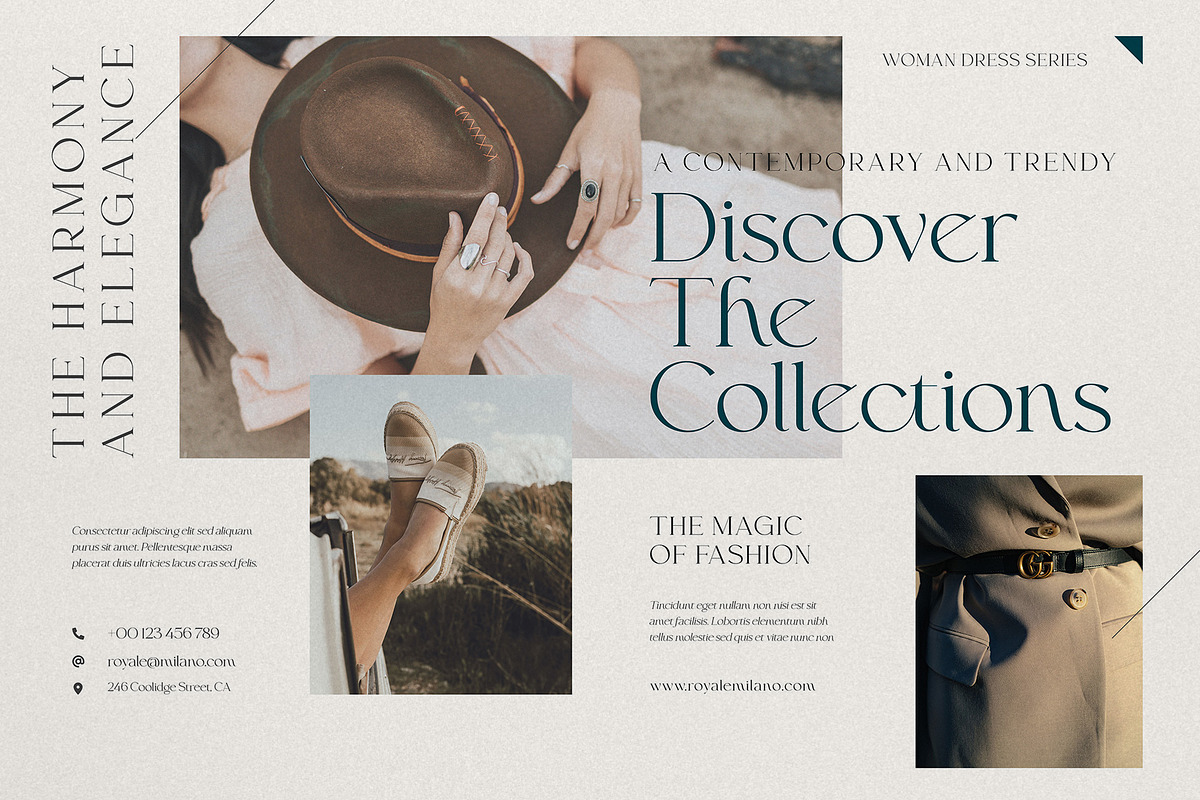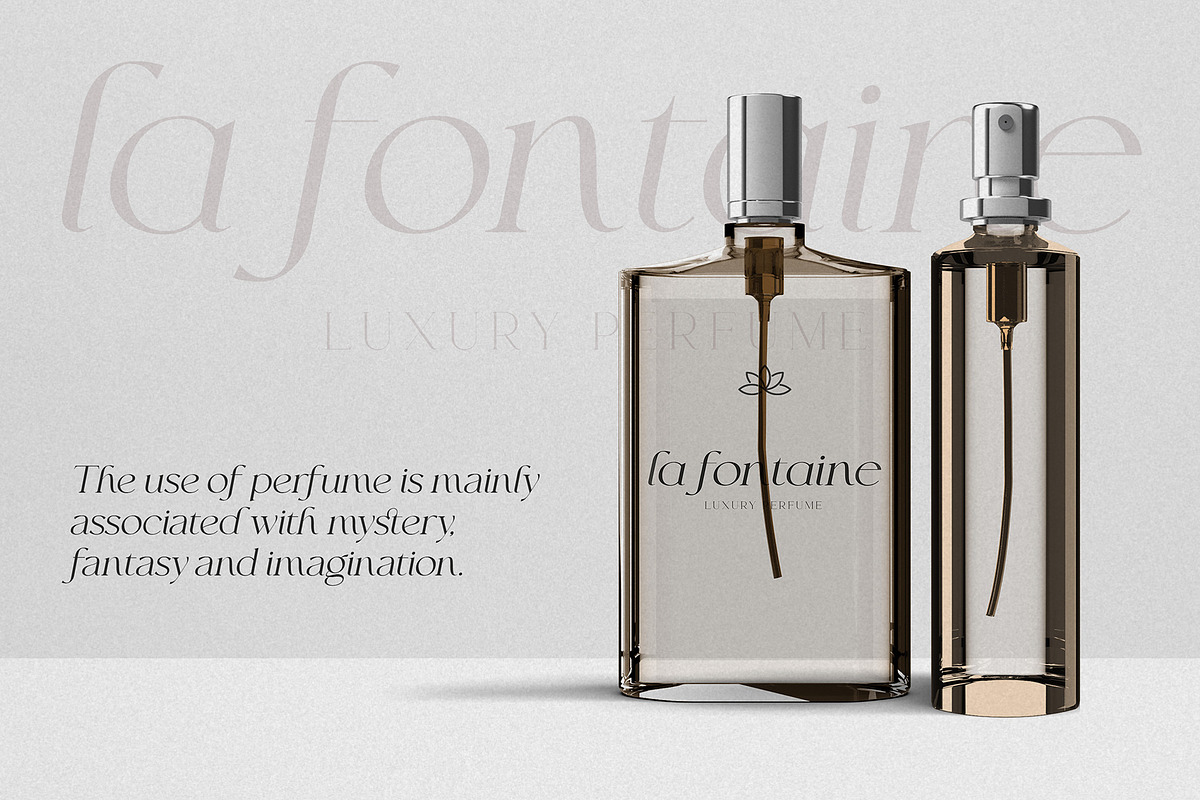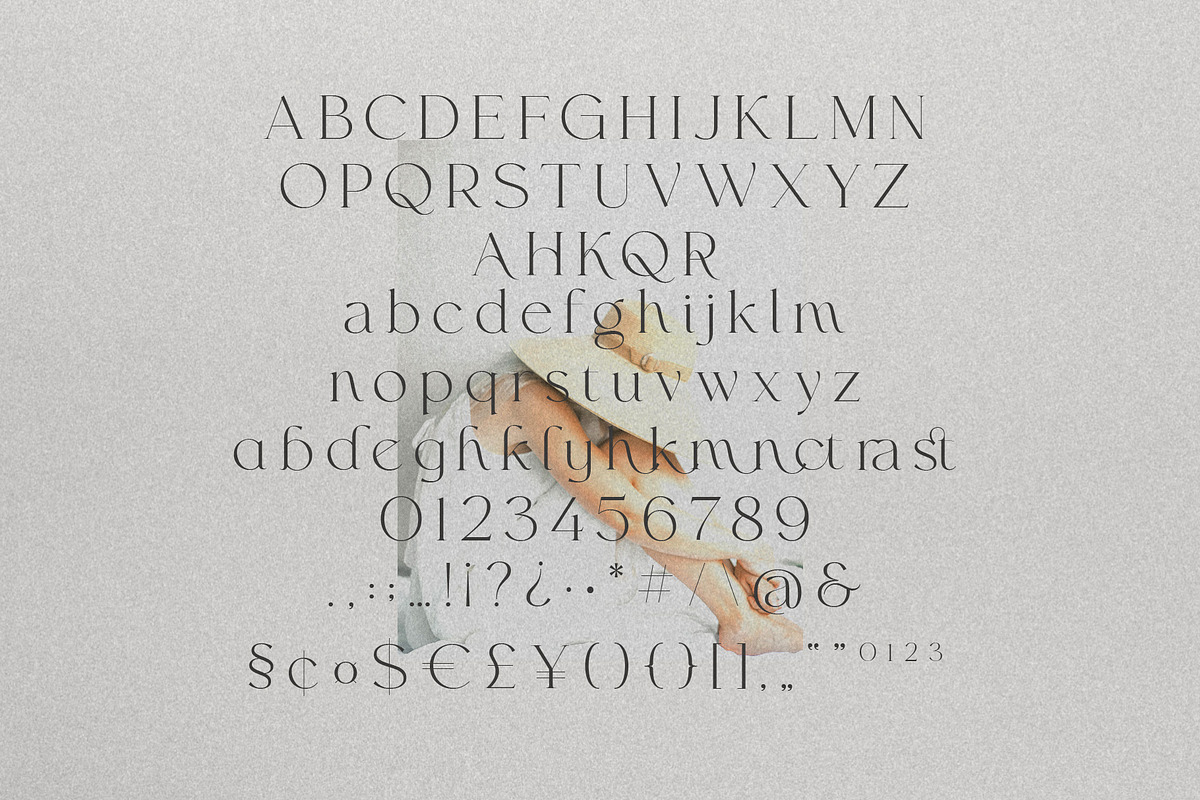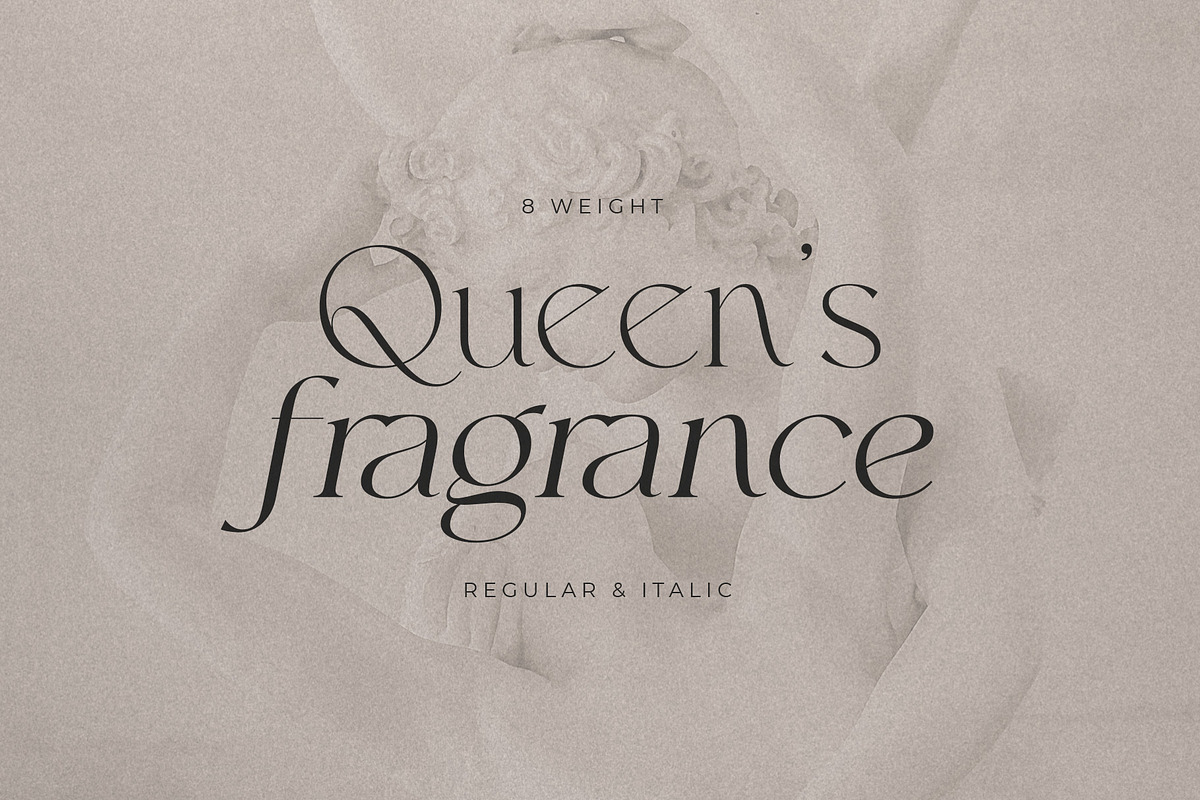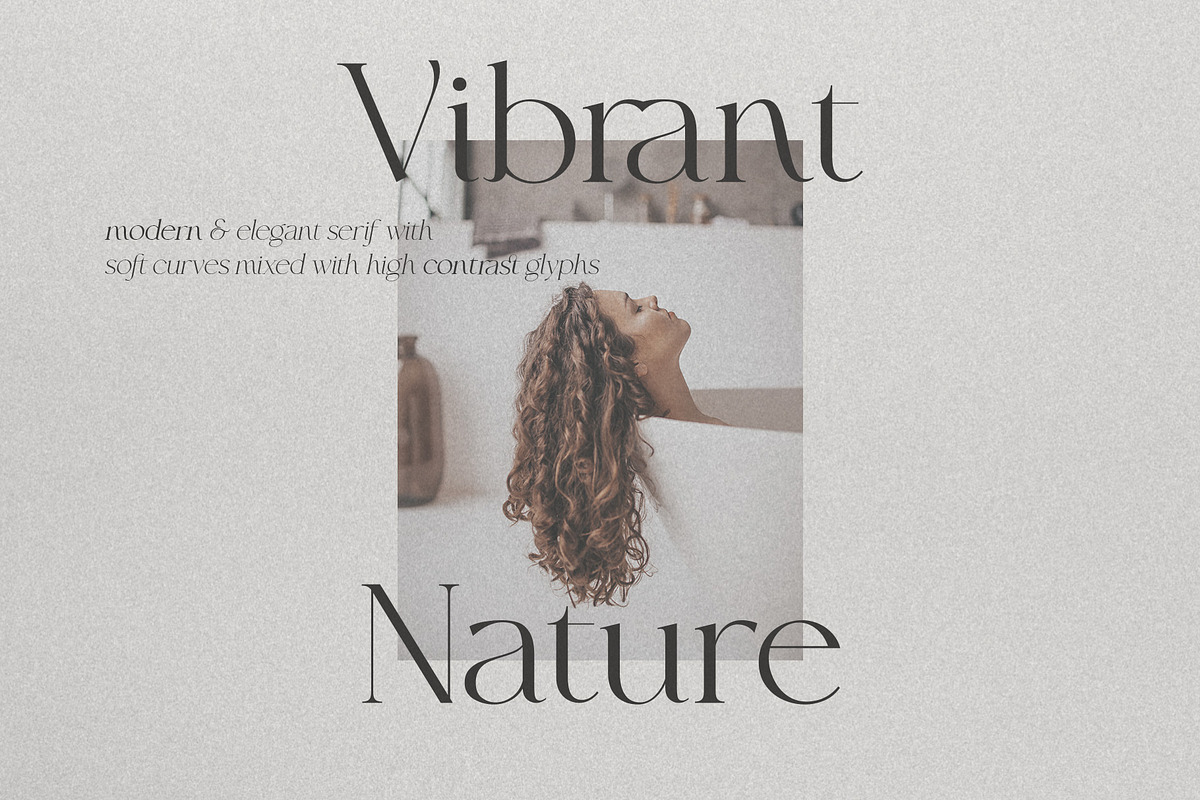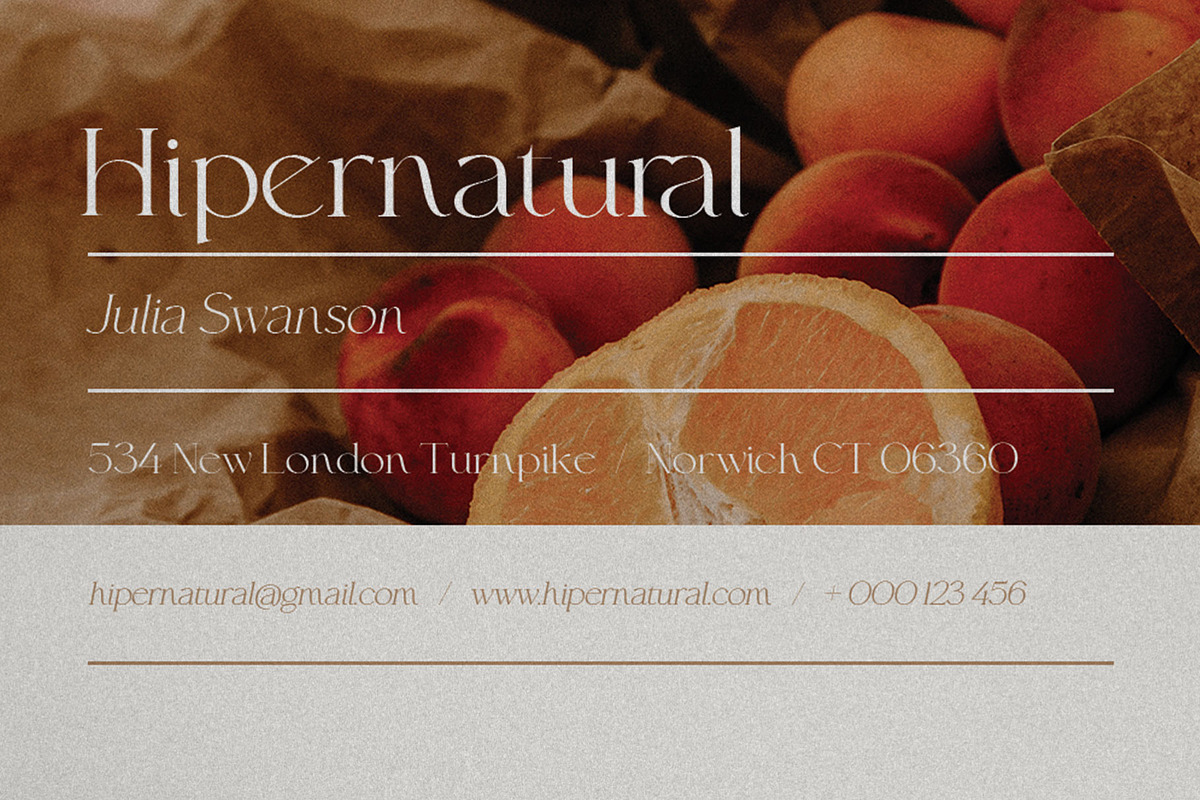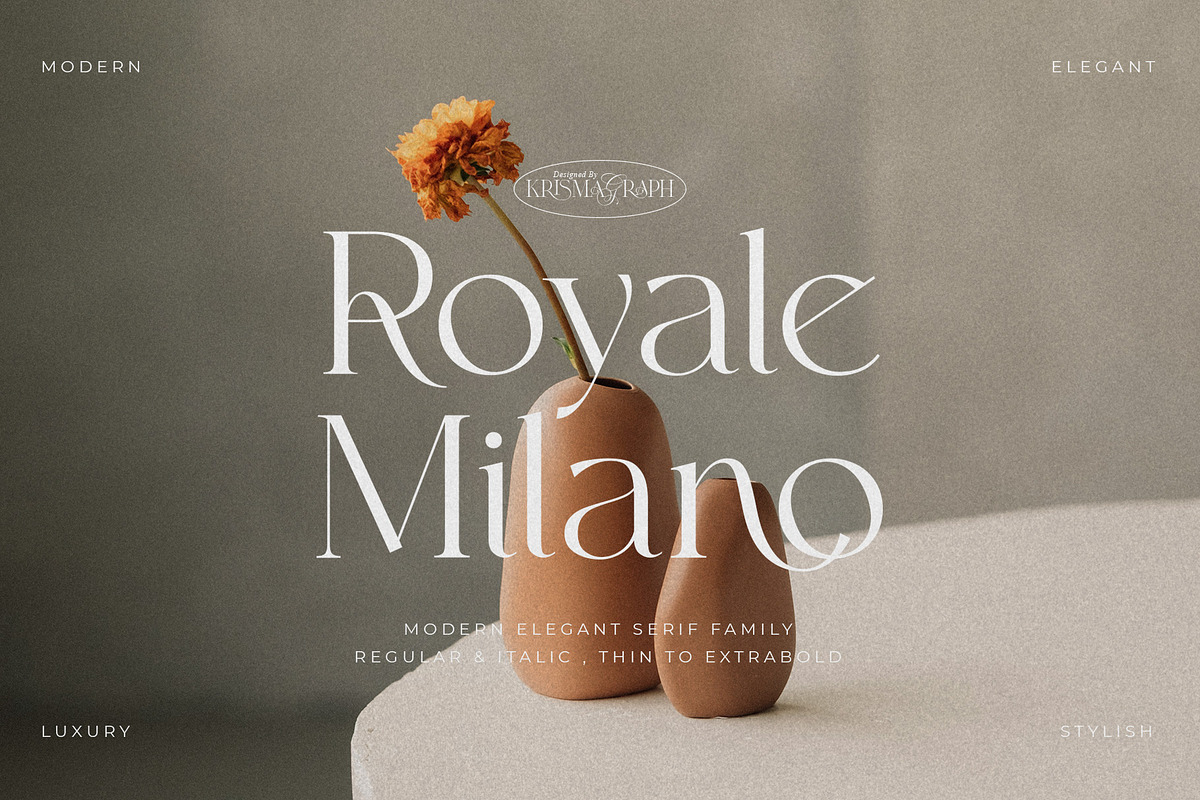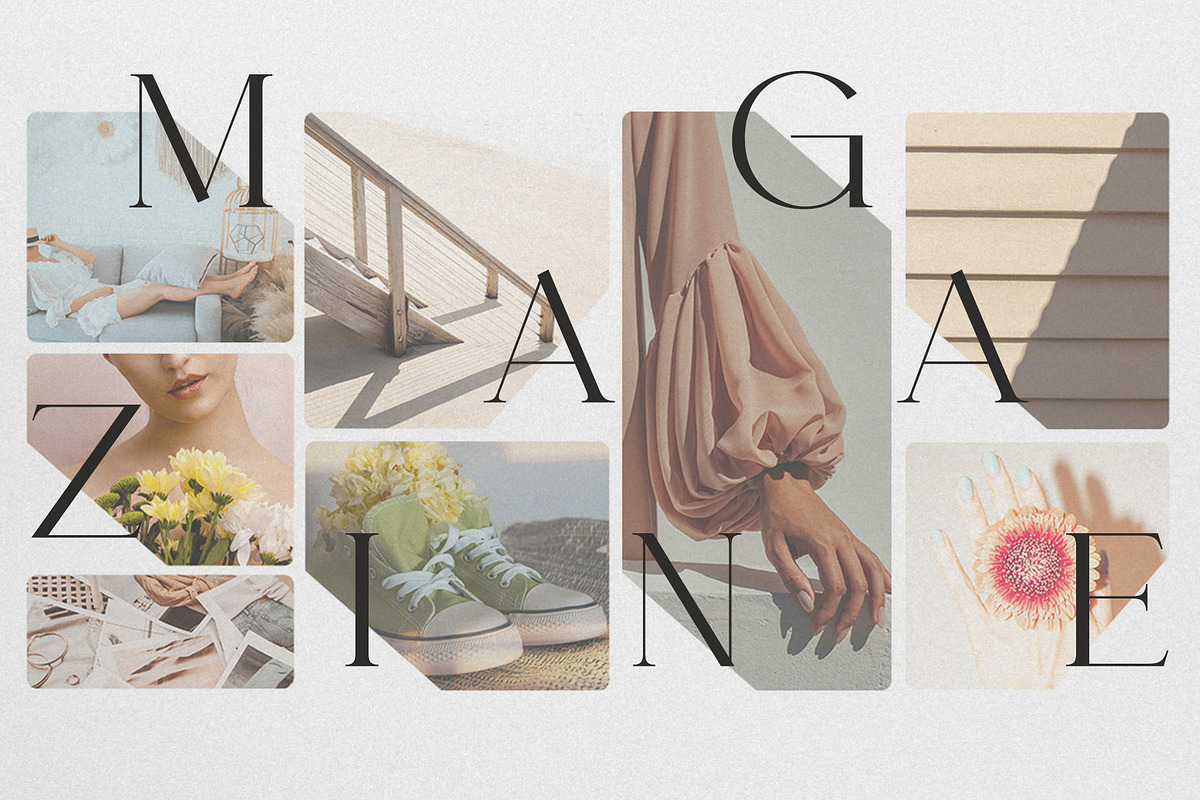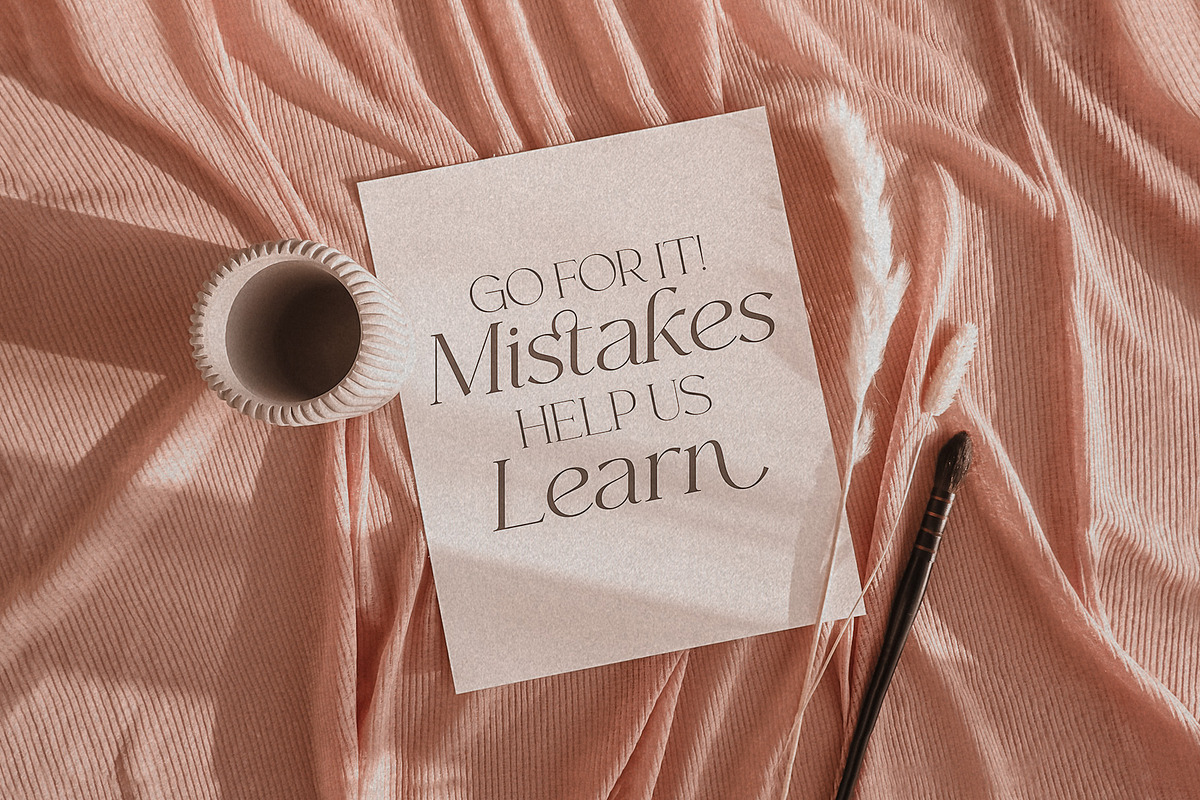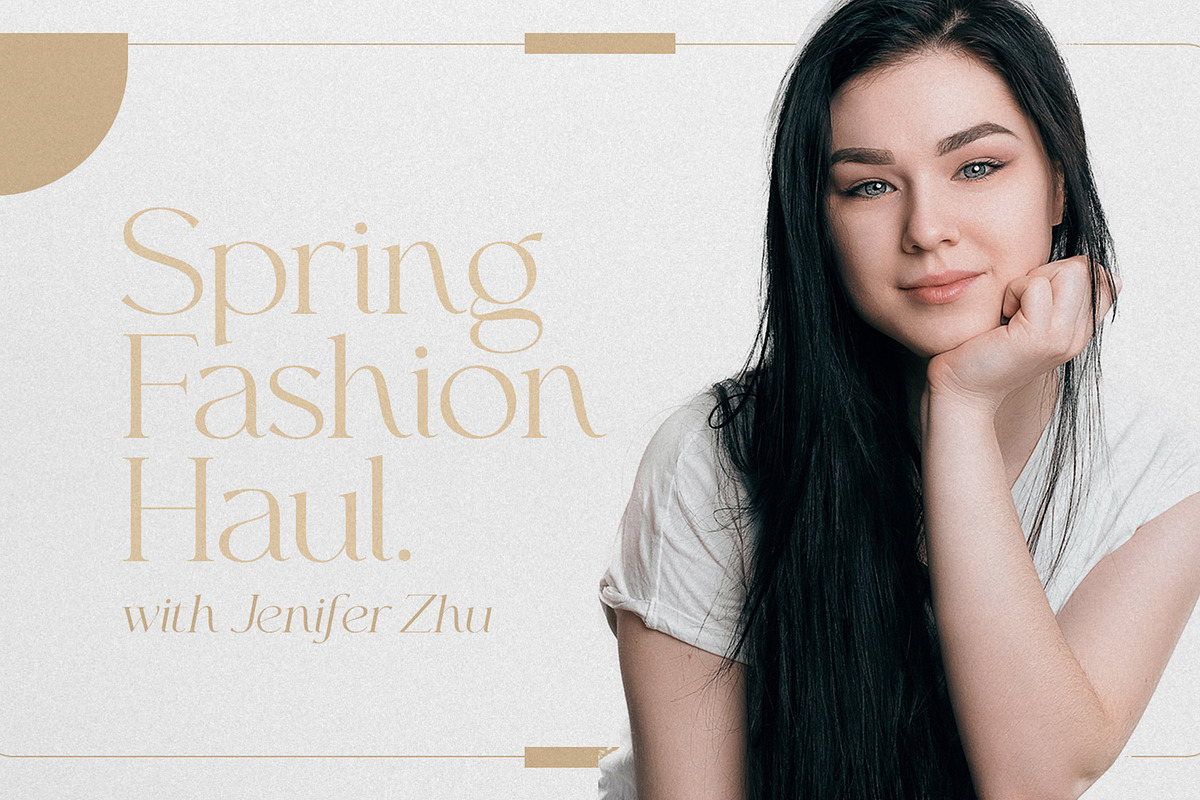
Royale Milano | Modern Serif Family
Royale Milano is an elegant and modern serif font family. It's serif in 8 weights from Thin to ExtraBold, with regular and italic versions. 16 fonts in total, Font Royale Milano is the perfect multipurpose font for any project, with high contrast glyphs, giving it a feminine and masculine quality, modern, and easy to read. Great in layout design for quotes or body copy, best used as a display for headings, logos, branding, magazines, product packaging, invitations, and more. This font is easy to use and has OpenType features.
- Complete Alphabet with Uppercase and Lowercase Letters
- Numbers, fractions
- Punctuation and symbols